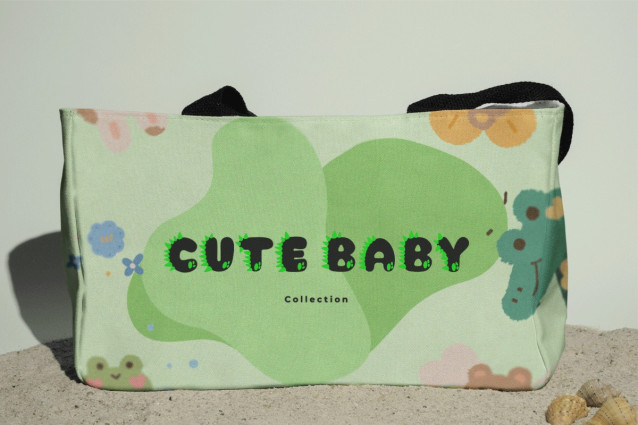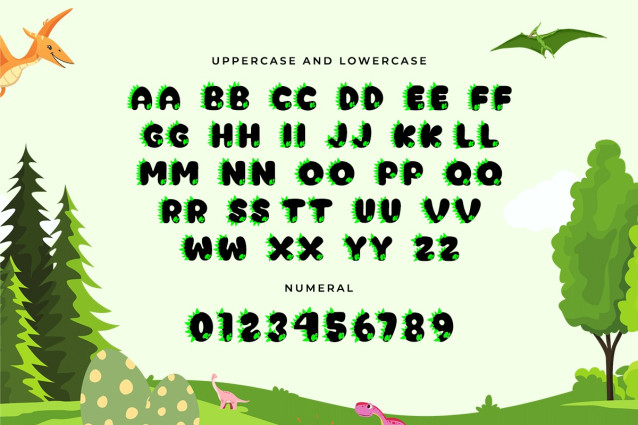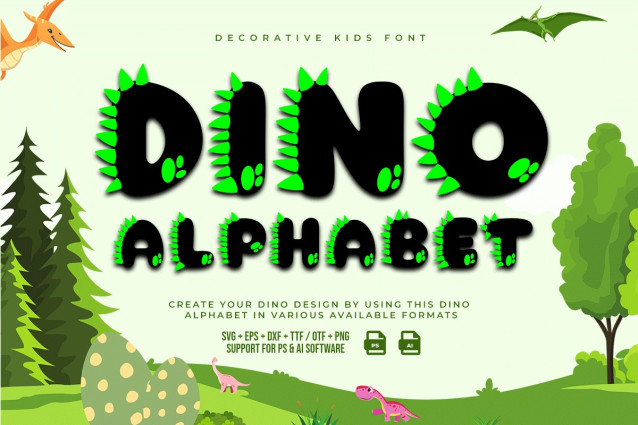
Dino Alphabet New Font
Dino Alphabet New Decorative Kids Font, our fun and decorative typeface designed for kids’ logos and lettering. Crafted in a cute shape with shapes representing dinosaurs, Dino Alphabet New Decorative Kids Font is our light typeface design that embodies the character of a fun-loving child. This type of letter has several unique characteristics, besides the letters some accents are often seen on dinosaurs. This unique design language makes the typeface look cute and fun, perfect for use on children’s water bottles or t-shirt designs. Any brand whose target market is young children or children can use this type of font on their packaging. They can use this typeface in their brand name or on their merchandise. You can use Dino Alphabet New Decorative Kids Font for children’s book covers, children’s toy packaging, and other printed media. The cute design will also attract the attention of children at school when they want to make wall decorations or learning events, so it can create a fun learning atmosphere for students. If one of your students is having a birthday celebration in class, be sure to choose this typeface to make your celebration more festive and cheerful. Our collection of decorative fonts is compatible with Figma fonts, Canva fonts, Freepik fonts, and Adobe fonts. They also function as Windows Fonts and Apple Fonts. For your social media needs, you can use and install fonts in our Decorative fonts collection to use as Instagram Fonts, Facebook Fonts, and Twitter Fonts.